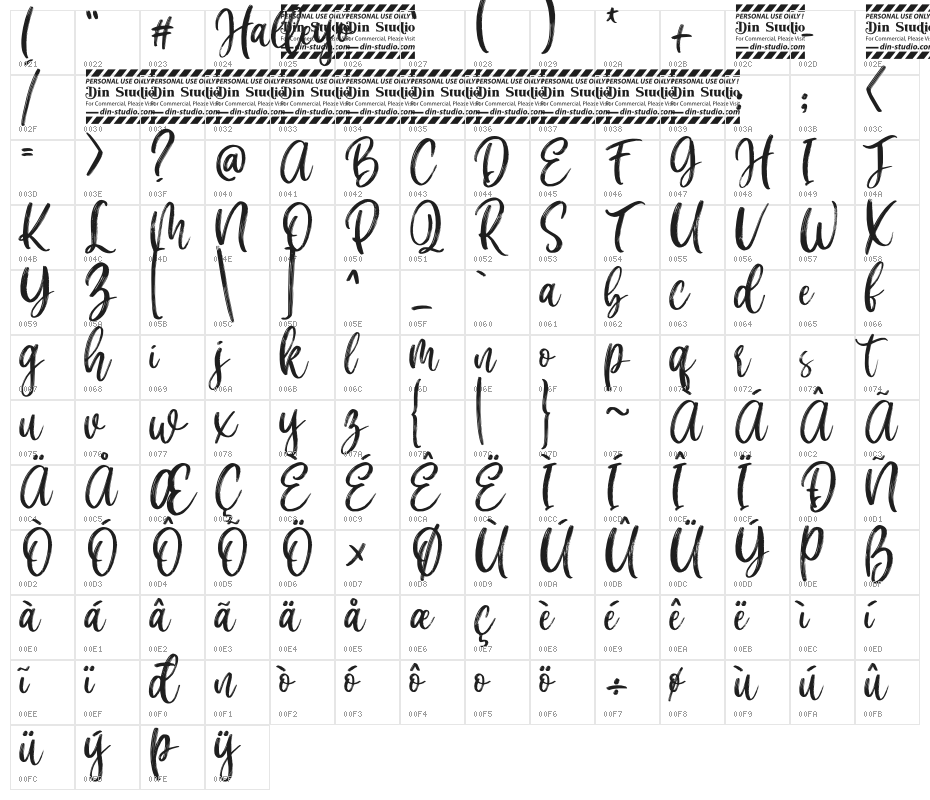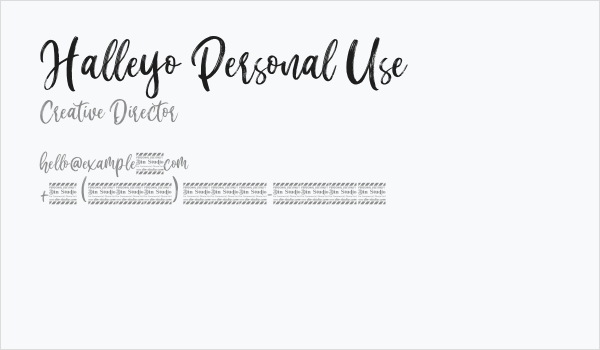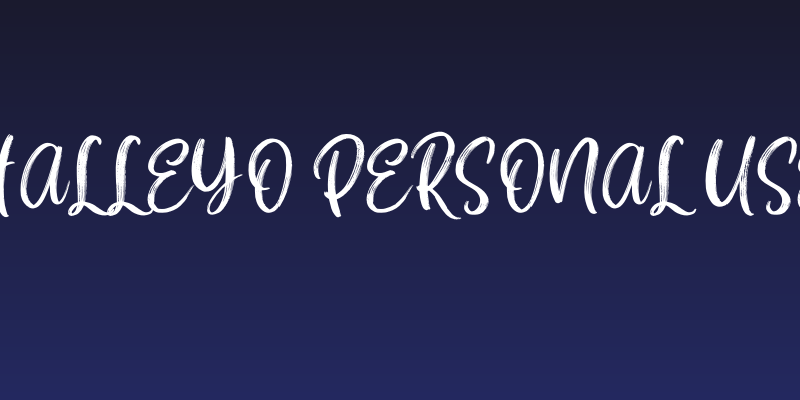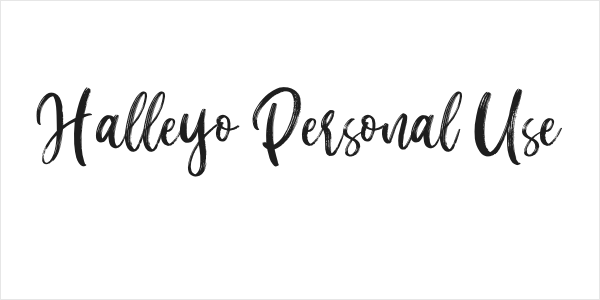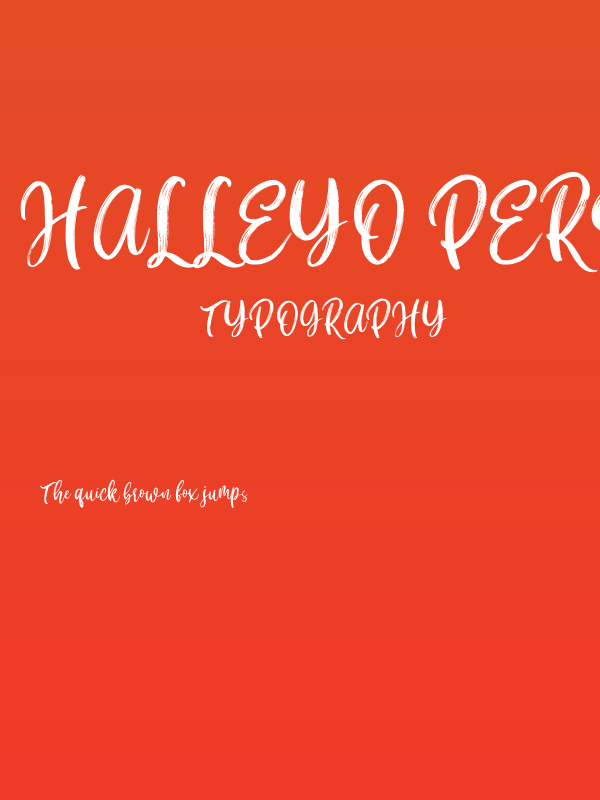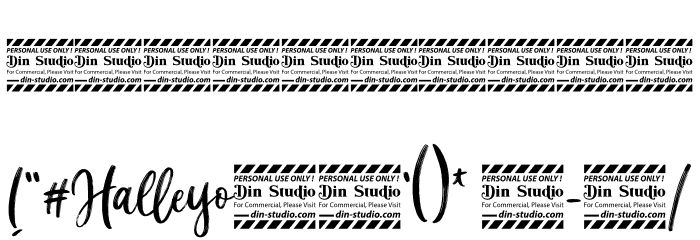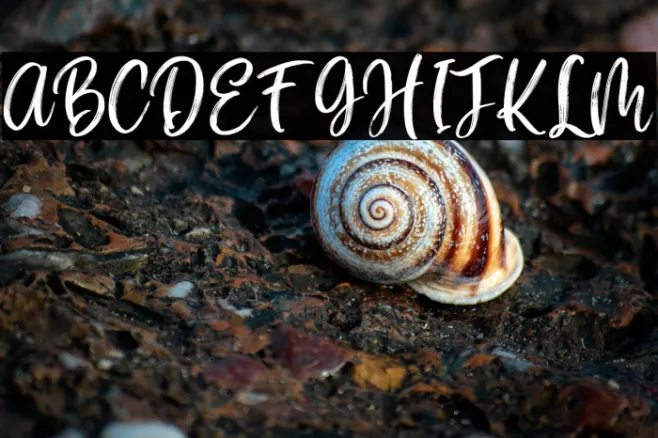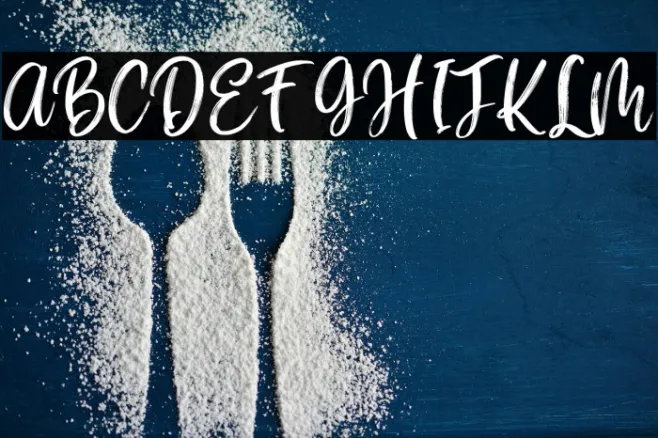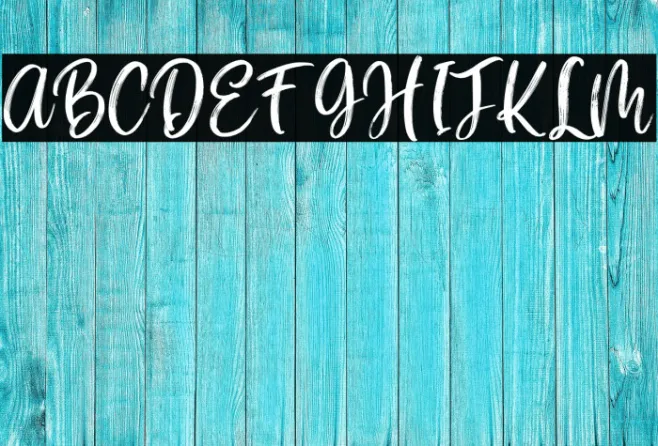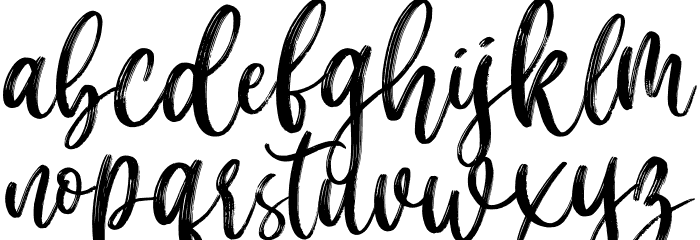
Halleyo Personal Use Font
Halleyo Personal Use Description
This font features a bold and expressive script style, characterized by its flowing, cursive letters that convey a sense of elegance and creativity. The strokes are thick and dynamic, with a brush-like appearance that adds a handcrafted feel. The uppercase letters are slightly larger and more prominent, while the lowercase letters maintain a consistent flow, enhancing readability. The font includes a full set of uppercase and lowercase letters, numbers, and a selection of special characters, making it versatile for various design needs.